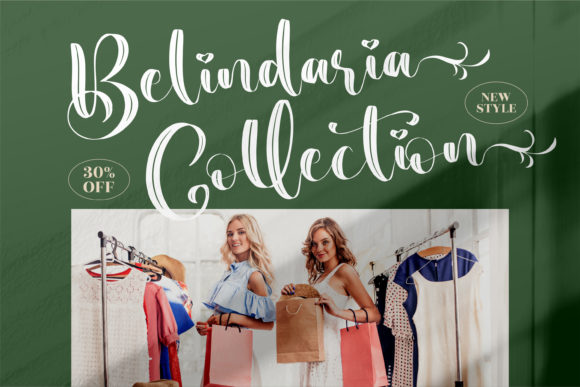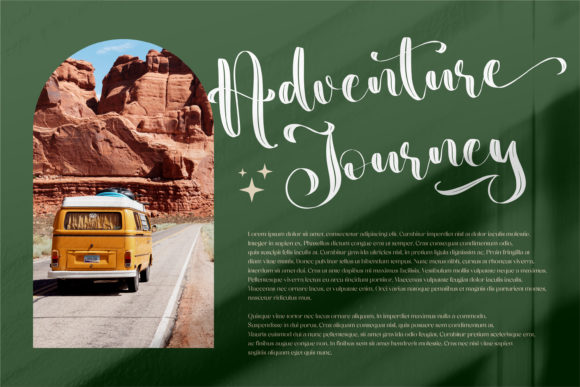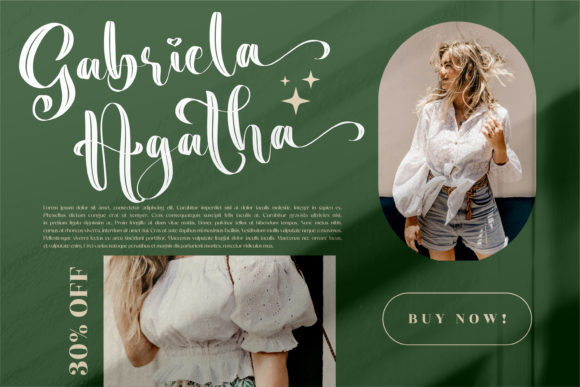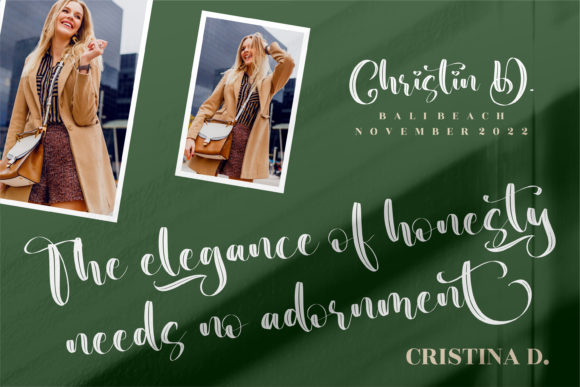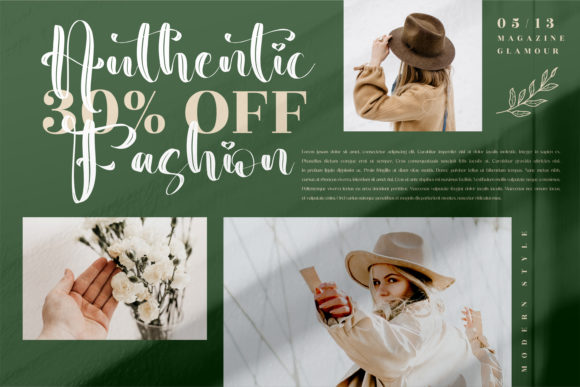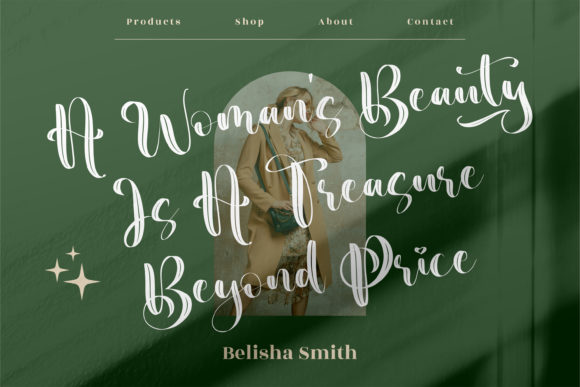
The Perfect Font for Your Next Design Project
Have you ever been brainstorming a design concept and suddenly, a spark of inspiration hits you? It’s that magical moment when everything falls into place, and you know exactly how you want your project to look. For many designers, that moment is made even more special with the right font. And today, we’re excited to introduce you to the Beauty Nature Font – a romantic and sweet calligraphy typeface that will add a touch of luxury to any design project.
The Beauty Nature Font is a game-changer for designers who want to create stunning, high-end designs. With its PUA-encoded characters, you can access all the amazing glyphs and ligatures with ease, making it perfect for creating unique and eye-catching designs. Whether you’re working on a wedding invitation, a branding project, or a marketing campaign, this font is sure to impress.
Beauty Nature Font Key Features
- Font Family: Beauty Nature Font is a unique, hand-drawn font designed to evoke the beauty of nature.
- Unique Characteristics: Features intricate, hand-drawn illustrations of flowers, leaves, and other natural elements, adding an organic touch to any design.
- Font Styles: Includes regular, bold, italic, and bold-italic styles to provide versatility in font selection.
Beauty Nature Font Review
Overall, I think the Beauty Nature Font is a nice addition to any designer’s toolkit. ✨ The flowing curves and natural aesthetic make it perfect for projects that require a touch of organic charm.
Here are some things that I think work well:
- ✨ The font’s flexibility: it works well in a variety of contexts, from body text to headings.
- ✨ The natural, earthy feel: it’s perfect for branding and design projects that focus on the outdoors or wellness.
- ✨ The range of weights and styles: this font offers a nice selection of options to help you customize your design.
That being said, there are some limitations to consider:
- ⚠️ The font may not be the best choice for projects that require a strong, bold statement.
- ⚠️ Some users may find the font’s curves and flourishes to be distracting or overwhelming.
- ⚠️ The font may not be as versatile as some other options when it comes to pairing with other fonts.
Overall, I think the Beauty Nature Font is a solid choice for designers who are looking for a natural, earthy aesthetic. While it may not be the best fit for every project, it’s definitely worth considering for projects that require a touch of organic charm.
The Beauty Nature Font is ideal for:
- Floral and botanical designs
- Outdoor and nature-themed projects
To get the most out of the Beauty Nature Font, try:
- Combining it with floral and botanical illustrations
- Using it for headings and titles
- Experimenting with different font sizes and colors